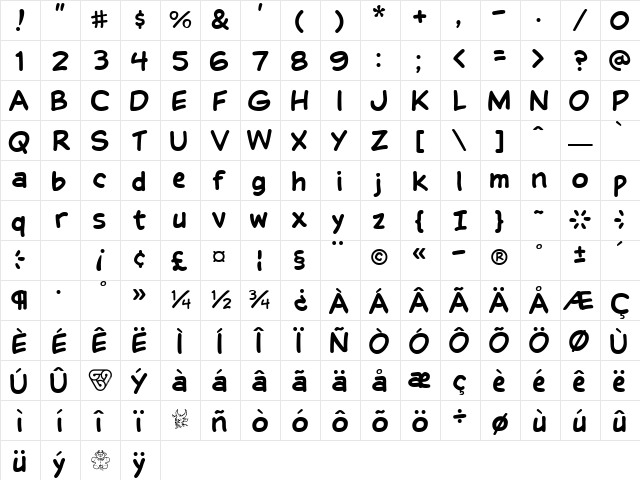
Balloon Lettering Regular Free Font
Balloon Lettering Regular
Design Context for Balloon Lettering
Balloon Lettering is a composed and adaptable typeface that performs quietly and consistently across a wide range of design contexts.
Pro Tip: Use Balloon Lettering in both headline and body roles to test its range before committing to a single application.